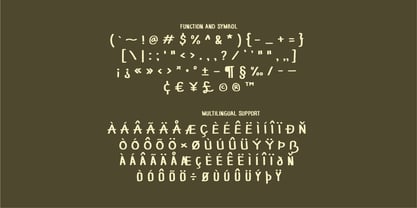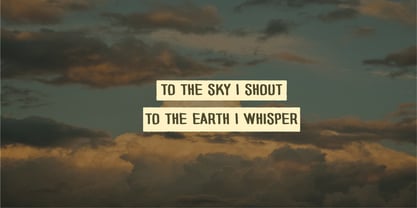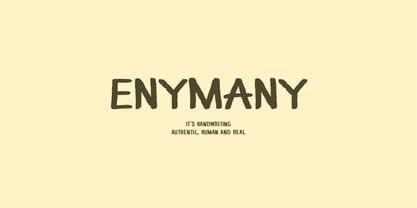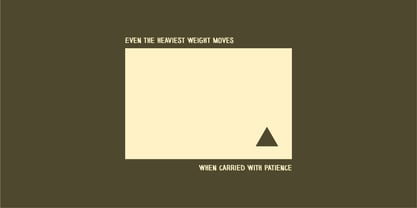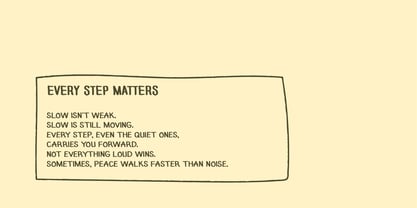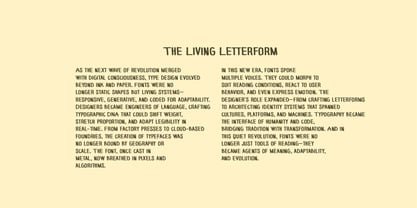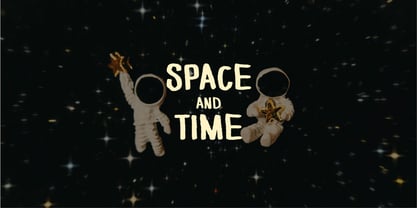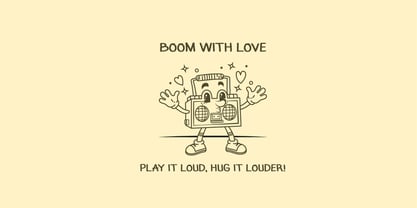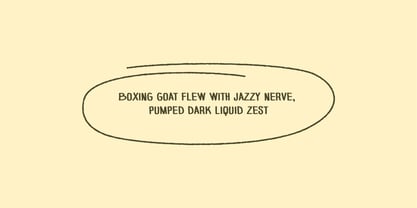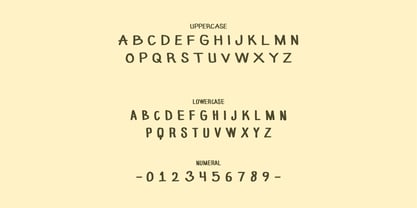
Enymany
by Nian Keun Studio
The Enymany Font Family was designed by Mugi Raharjo and published by Nian Keun Studio. Enymany contains 1 styles.
Enymany is a handwritten font designed to capture the essence of human imperfection and authenticity. With its raw strokes and organic flow, Enymany feels personal, warm, and real—ideal for projects that seek emotional depth and character.
This font is perfect for branding, packaging, posters, invitations, and social media designs that aim to stand out with an authentic and approachable vibe. Each letter is crafted to maintain balance and legibility while preserving the charm of natural handwriting.
Features:
✔ Authentic handwritten style
✔ Perfect for branding and lifestyle design
✔ Great for quotes, logos, and invitations
✔ Works for both print and digital projects
Bring life and emotion into your designs with Enymany—a font that speaks with honesty and human touch.